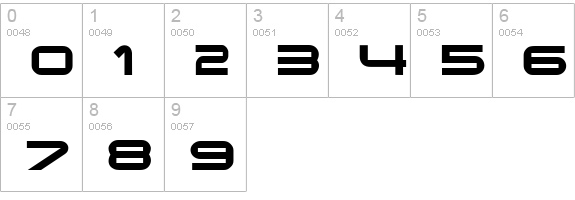
Eyechart Display Caps SSi Font Details
Eyechart Display Caps SSi font is a modern and stylish typeface perfect for eye-catching design projects. Its unique design features sharp edges and clean lines, making it a versatile choice for a variety of applications. Whether you're creating posters, logos, or branding materials, this font is sure to make a statement. The best part is that Eyechart Display Caps SSi font is available for free download at FontsMarket.com. Simply visit the website to access this fantastic font and enhance your designs with its bold and impactful appearance. Don't miss out on the opportunity to add Eyechart Display Caps SSi font to your collection of design resources today!